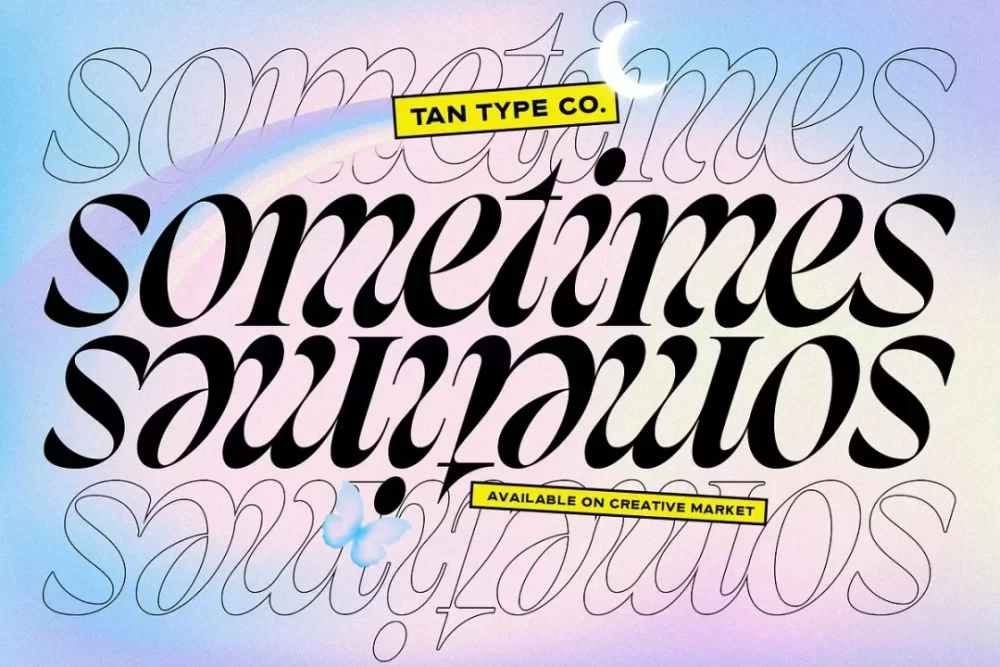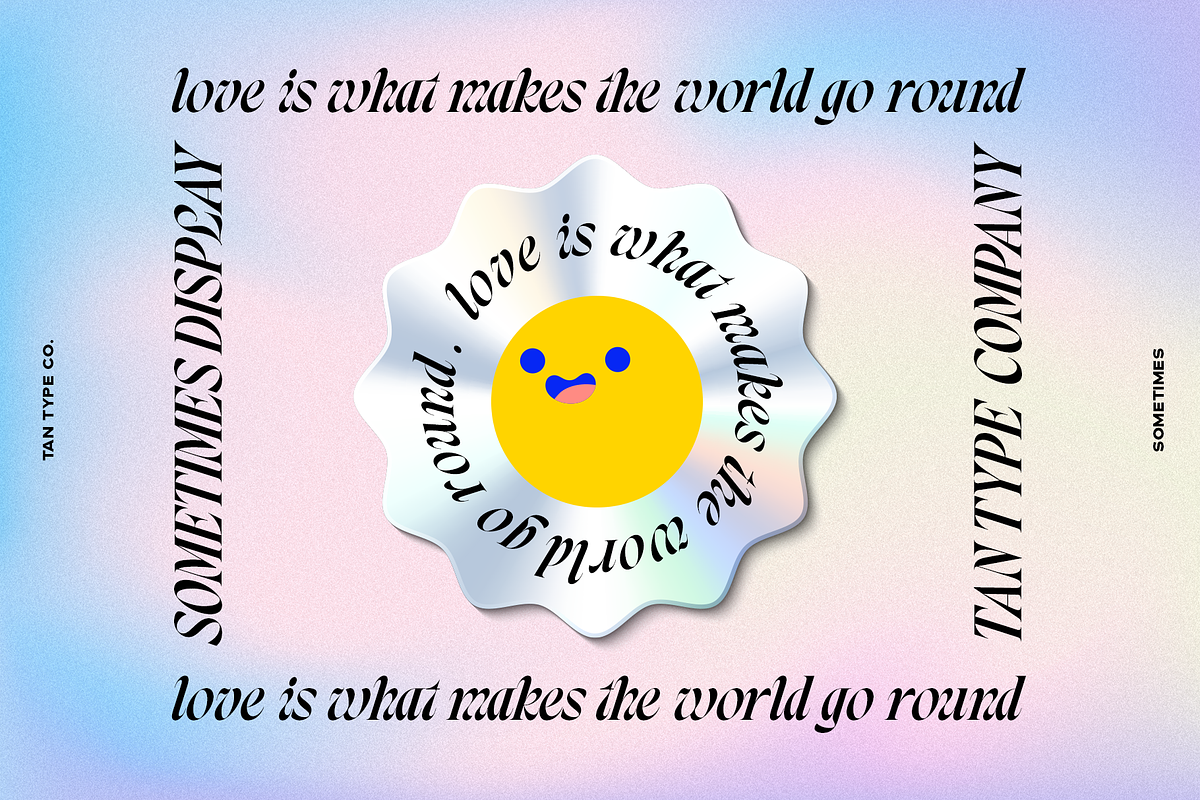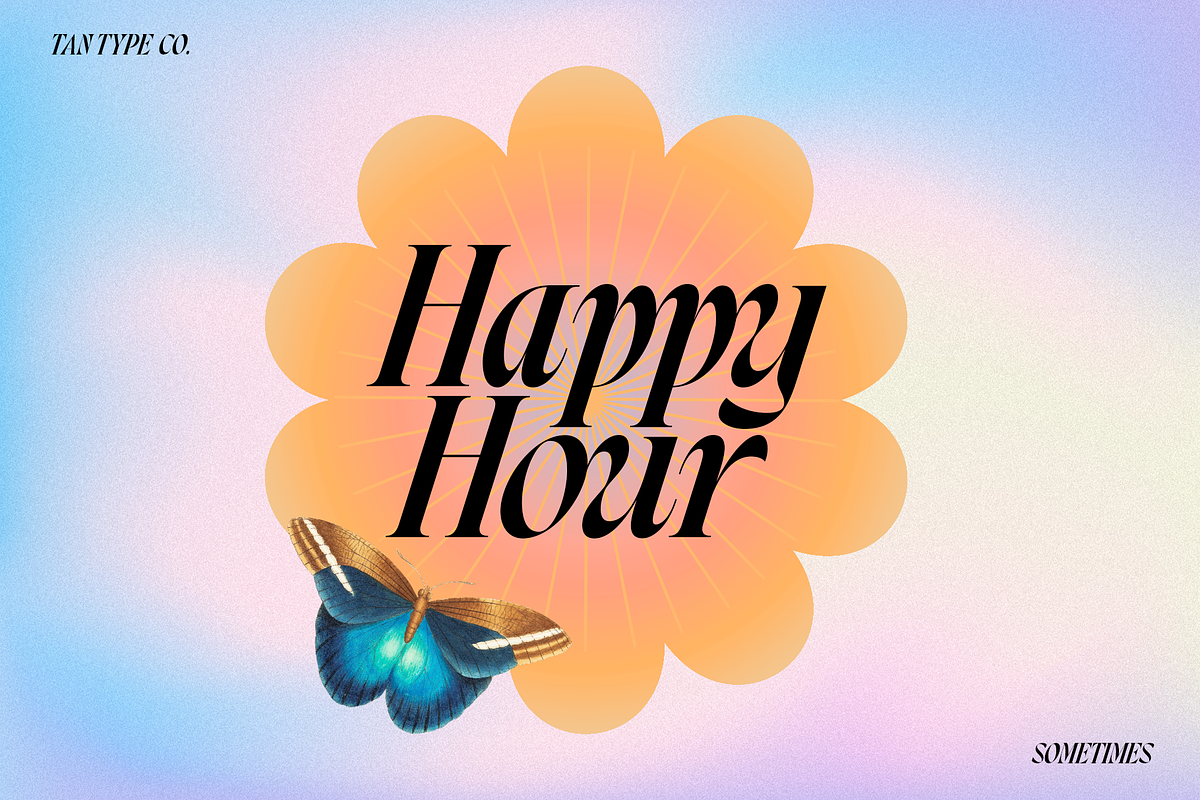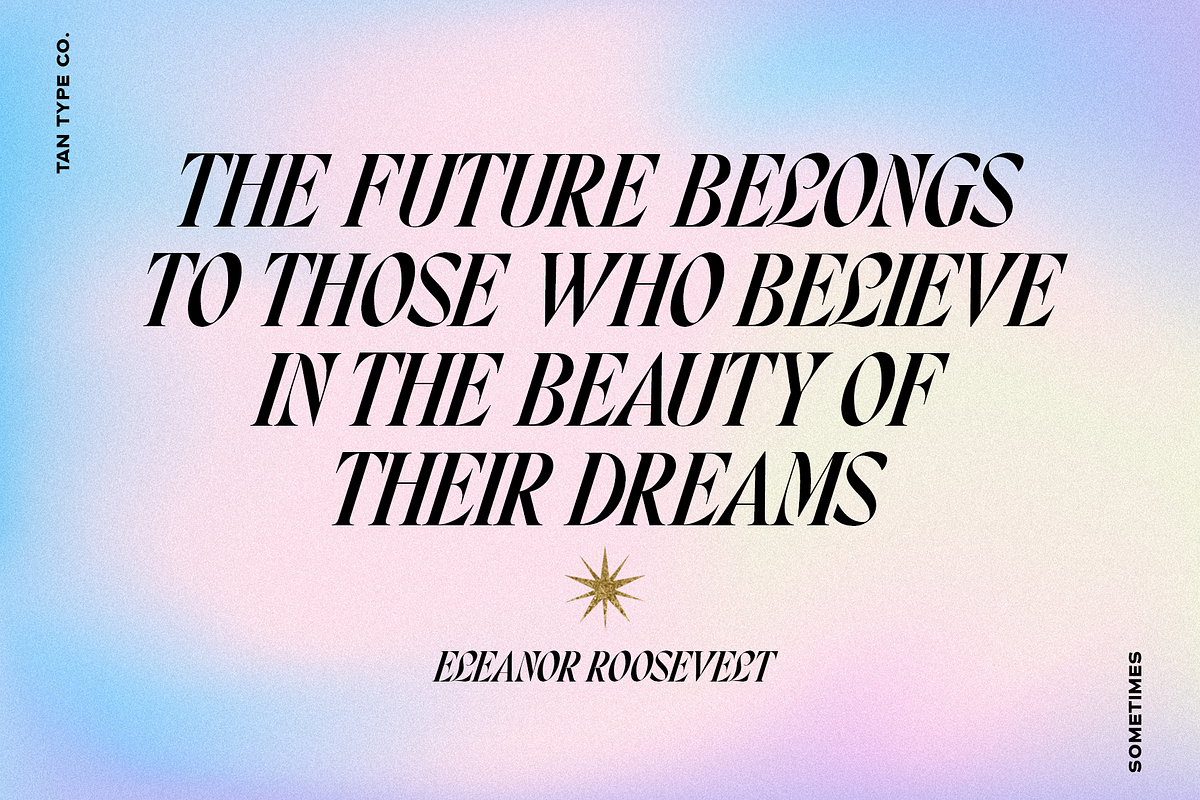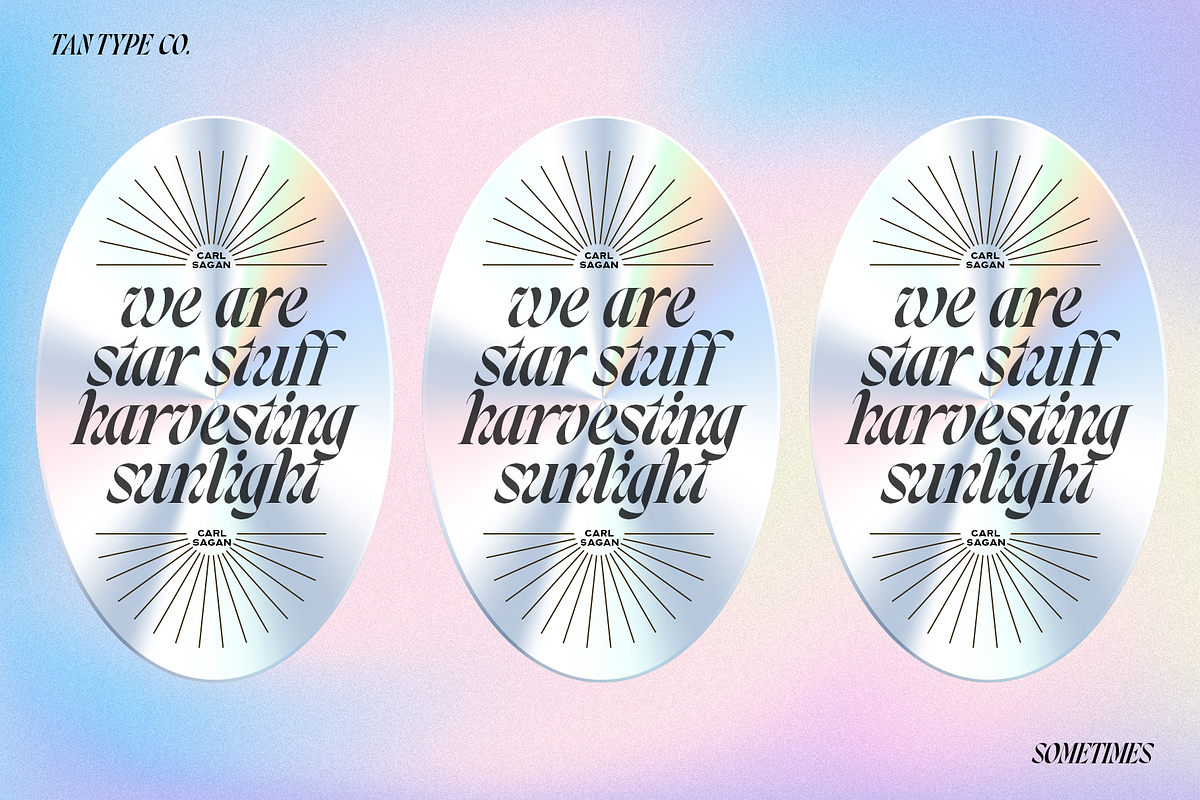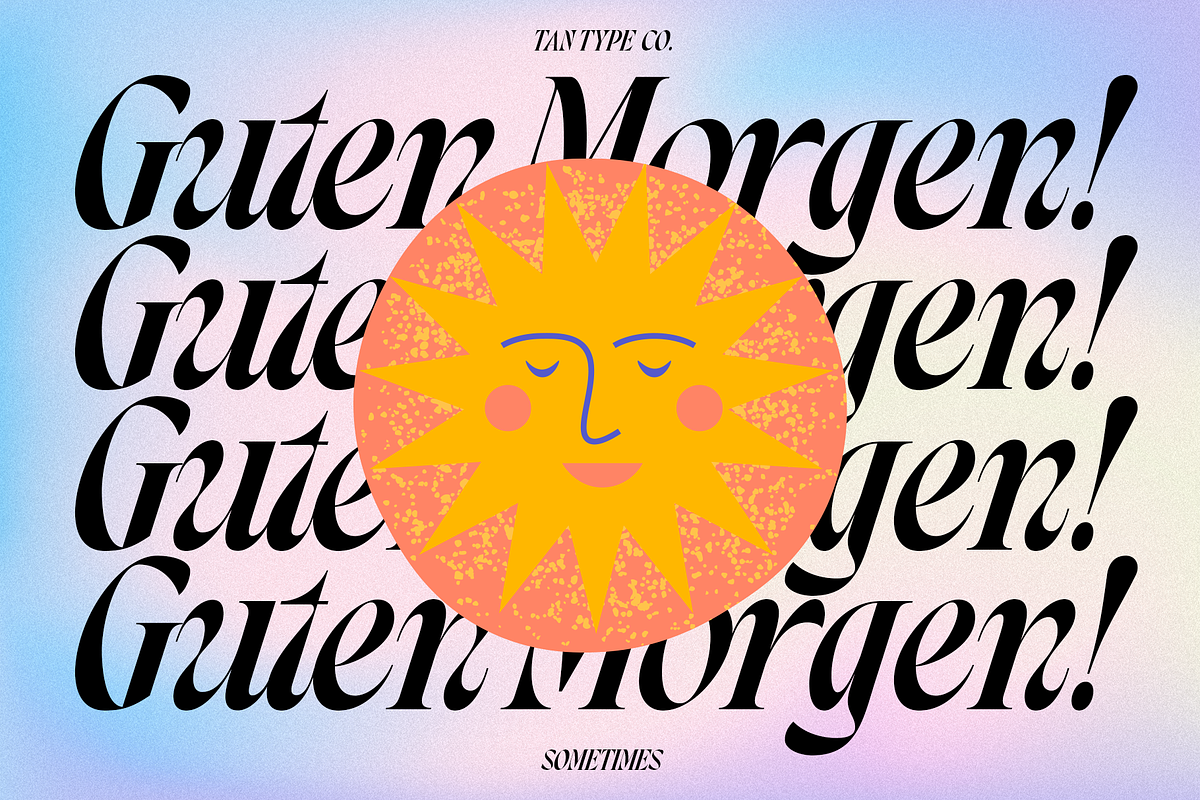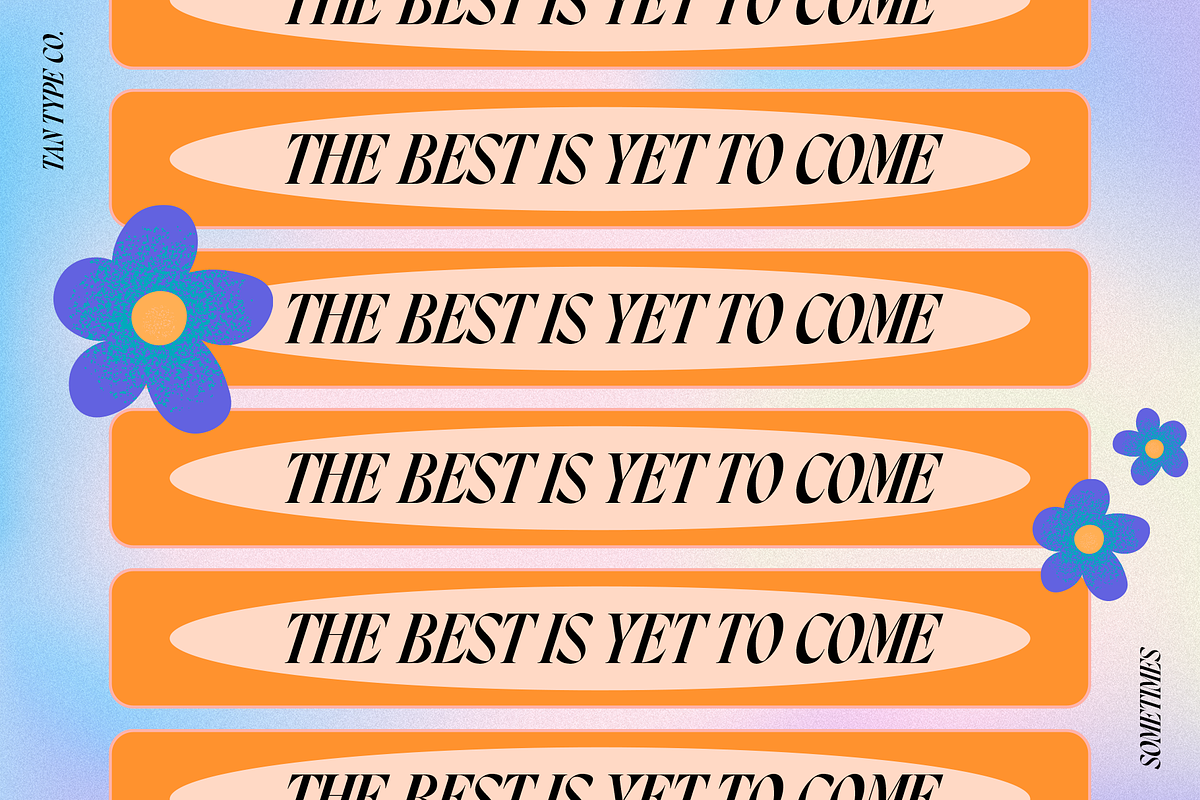
Tan – Sometimes Font
Tan - Sometimes Font
Tan – Sometimes is a bold display italic. Groovy and gives a retro vibe. Perfect for any of your design needs. Ready to use for your design like labeling, movie scenes, posters, movie titles, gigs, album covers, logos, and much more.